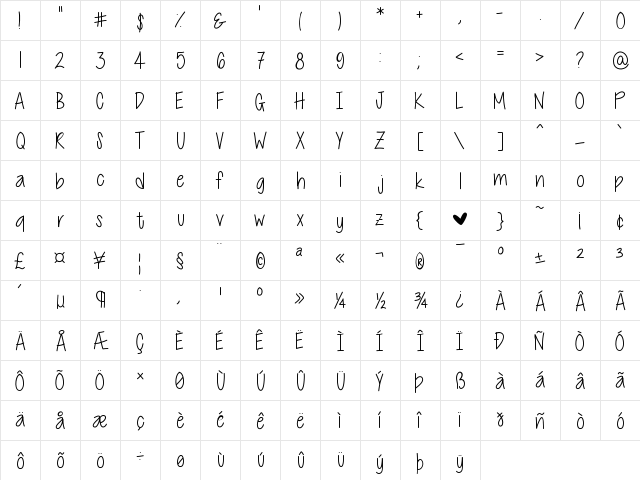
CutiePatootie Medium
| Designer | Vanessa Bays |
Design Context for CutiePatootie Typeface
CutiePatootie is a composed and adaptable typeface that performs quietly and consistently across a wide range of design contexts.